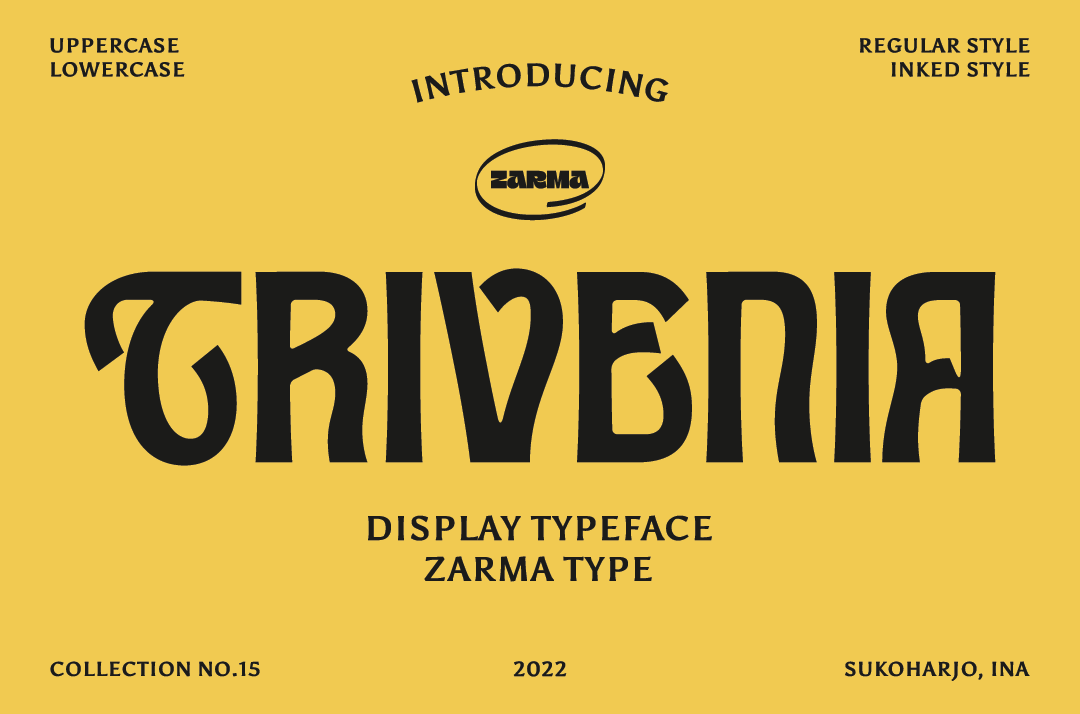
Trivenia - Psychedelic Font Font
About Trivenia - Psychedelic Font
Introducing Trivenia, a display typeface inspired by such an amazing *Baldur Type Specimen”. It has a classic shape with a modern touch on its curves. Comes with 2 styles, regular and inked for you to be more creative in your project.